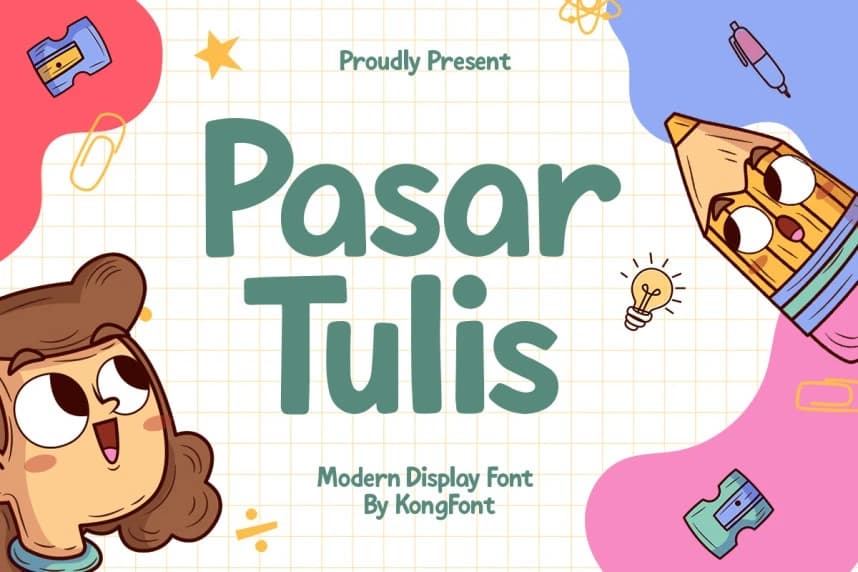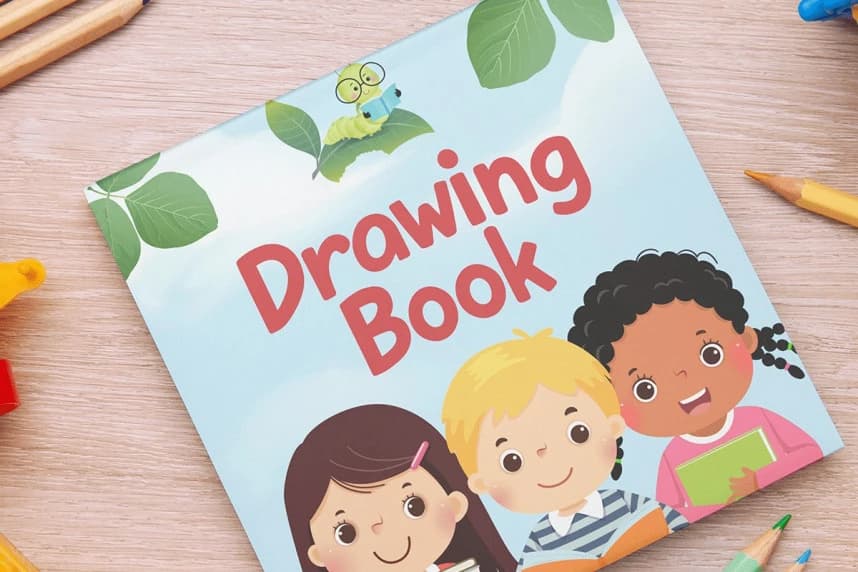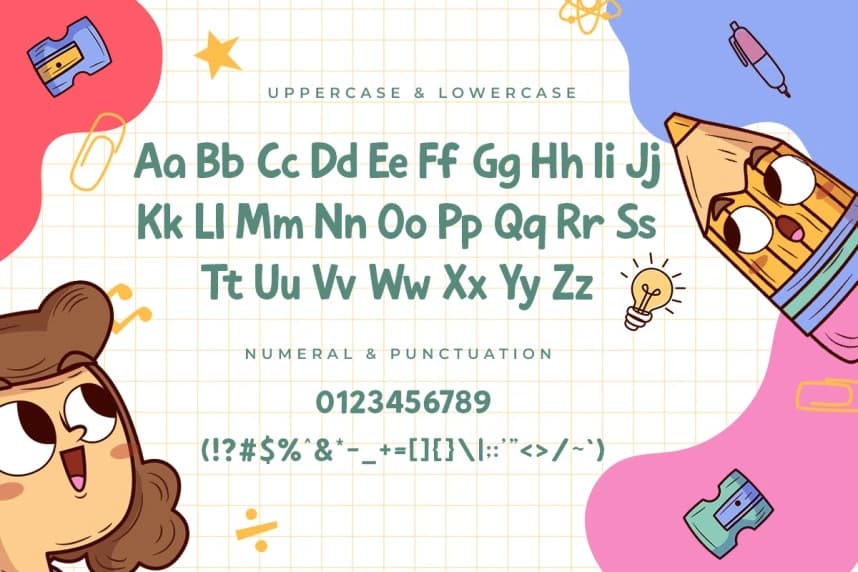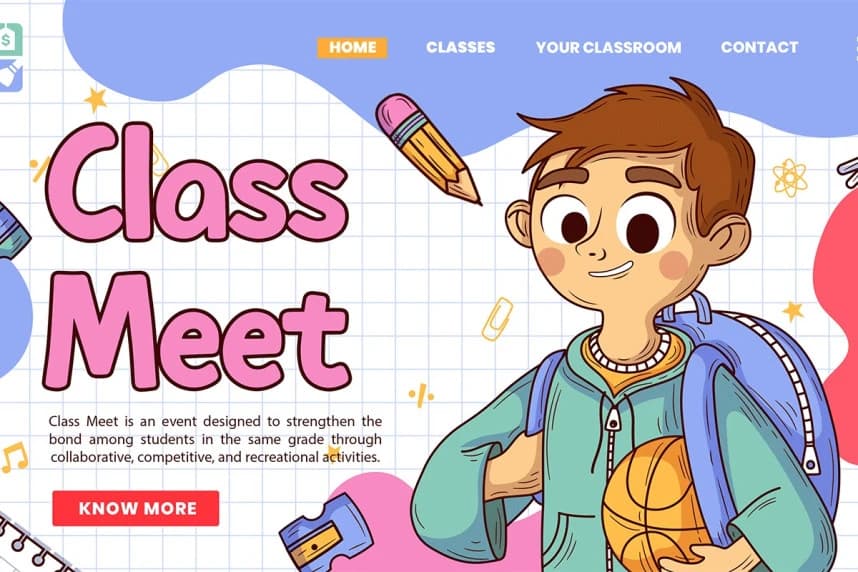
Pasartulis Display Font
Pasartulis Display Font A Modern Display Kids Font Part of our Display font collection, Pasartulis A Modern Display Kids Font is a classic render of the archetypal old western typeface. With big square blocks at the serif part of the font.